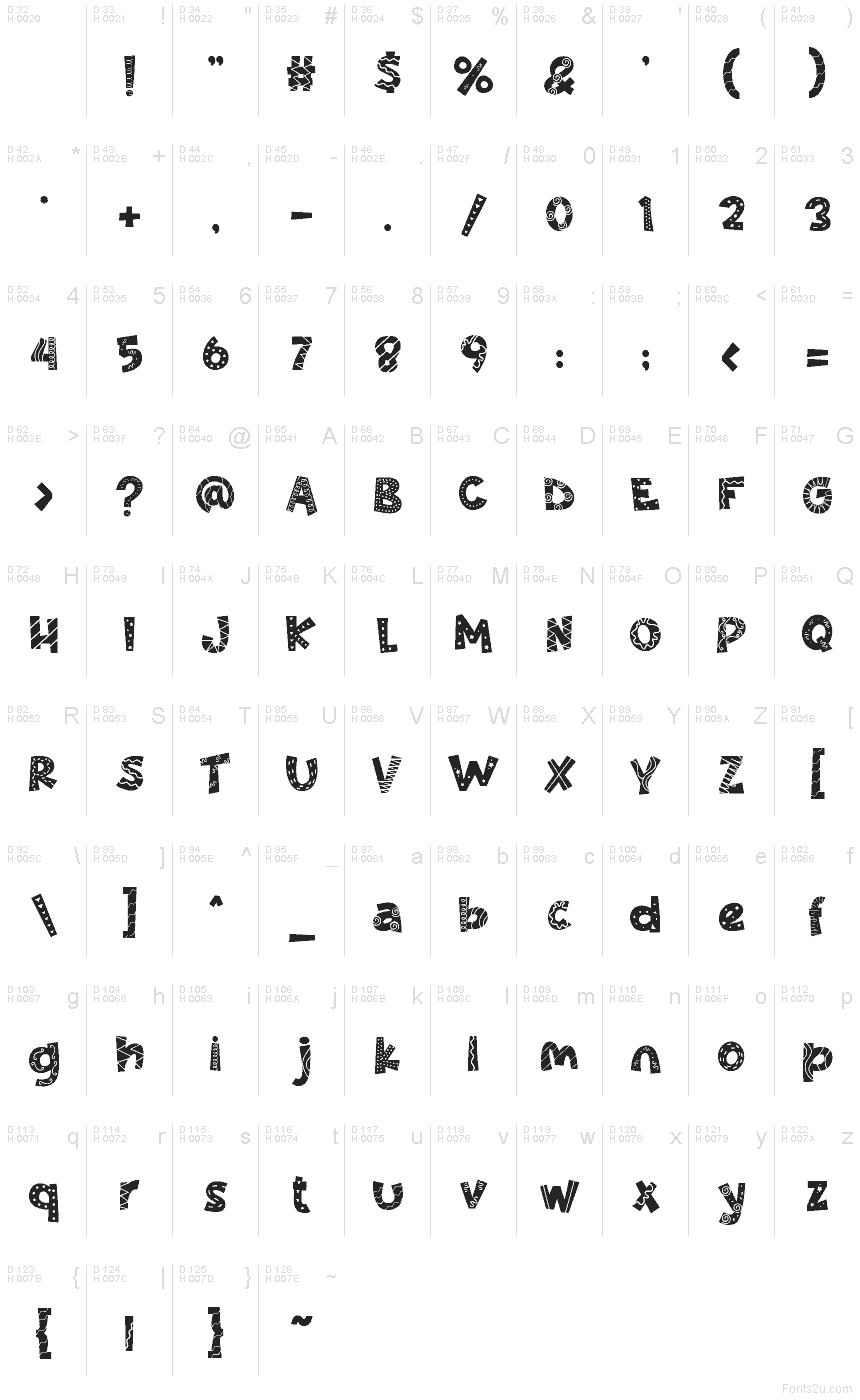
Night Clown Ornament
Night Clown Ornament font by PutraCetol Studio is a quirky and whimsical decorative display typeface. As its name indicates, the font is based on an ornamental pattern that has an eclectic feel to it along with abstract artistic elements. To top that, the weight of the font is bold and thus allowing for prominent visual emphasis when used.
This free display font has all sorts of possible design applications, including music album covers, movie posters, horror novels covers, superhero comics cover pages or strips, video/ pc game packaging or covers. Other uses include advertising materials like banners and brochures within relevant industries such as entertainment and the likes.